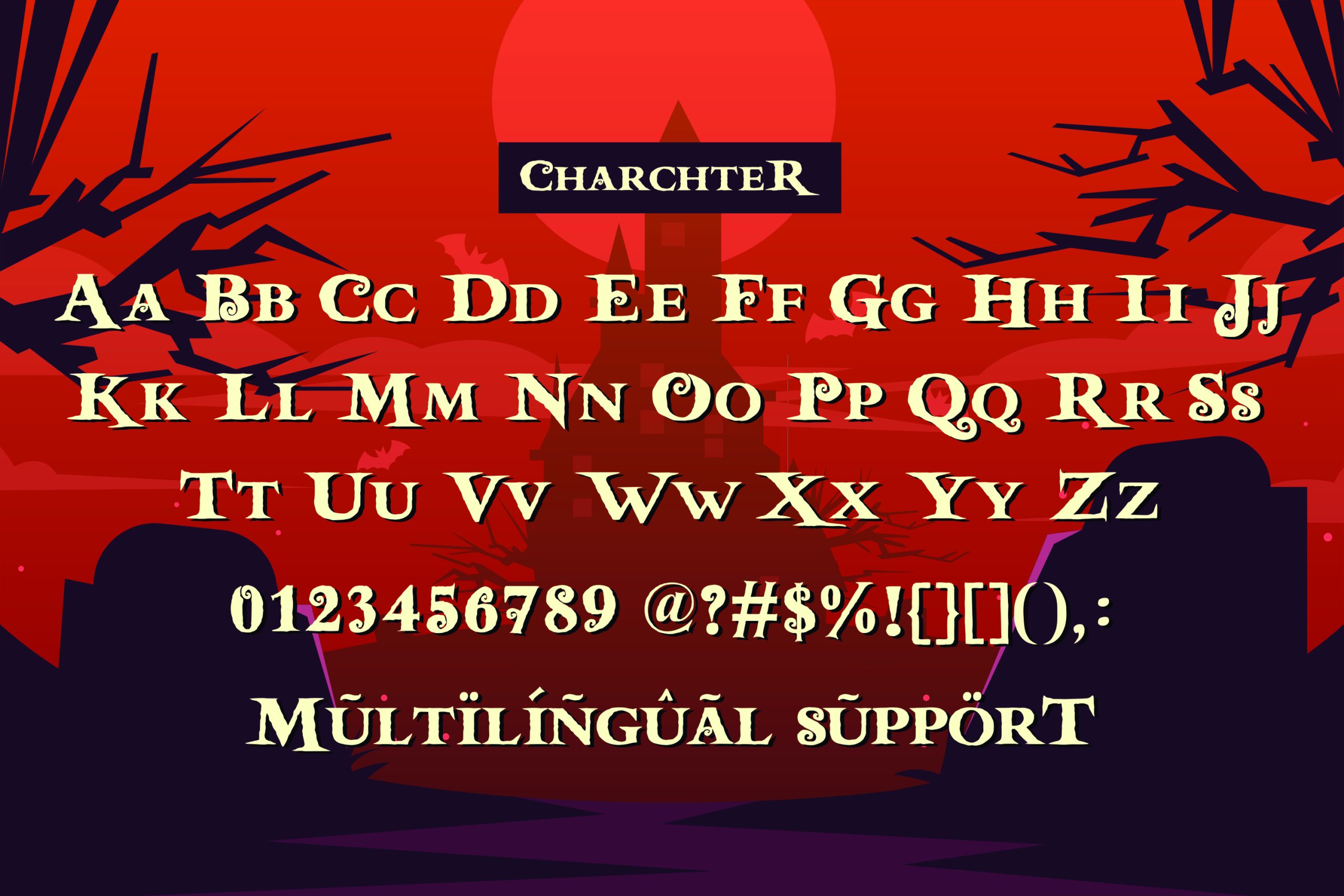
Witcher Knight Font
Witcher Knight Display Font
It’s A Halloween Horror Hand-Drawn Font. Witcher Knight is perfect for product packaging, branding project, magazines, social media, weddings, or just used to express words above the background.